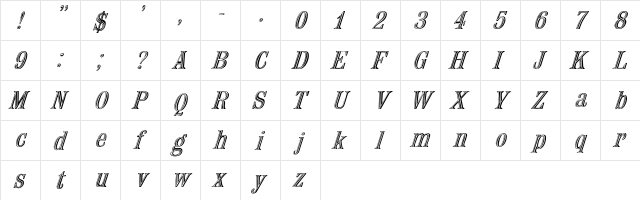
Nauert-Italic Regular Font Preview
Nauert-Italic Regular
Nauert-Italic Regular Font Details
Design Context for Nauert-Italic Typeface
Nauert-Italic is a composed and adaptable typeface that performs quietly and consistently across a wide range of design contexts. The dynamic lean of this cut emphasises speed and emphasis in any layout.
Pro Tip: Try Nauert-Italic for annotation and caption copy alongside an upright companion — the contrast in angle creates a dynamic but ordered typographic system.